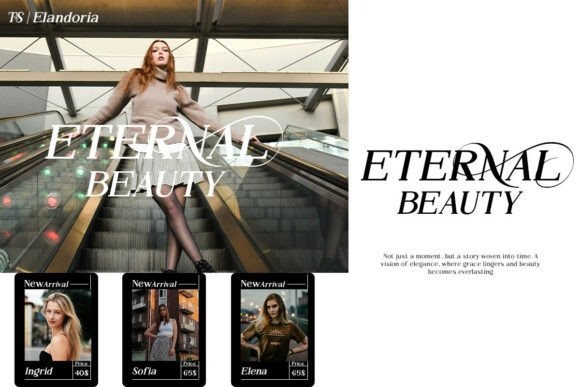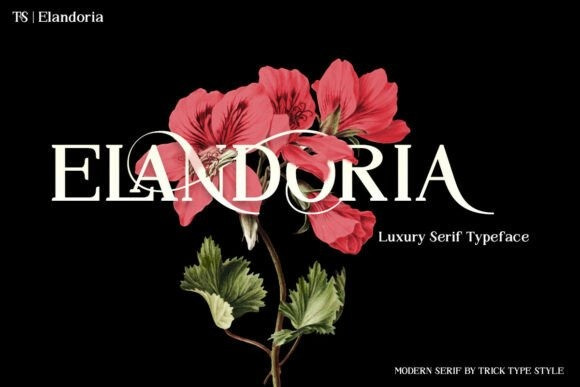
Elandoria Font
Elegant Font, refined, and timeless — Elandoria font is a luxury serif typeface that elevates every design with sophistication.Its graceful contrast between thick and thin strokes, along with unique curved serifs, creates a harmonious blend of classic elegance and modern minimalism.Featuring full multilingual support, alternates, and ligatures, the Elandoria font is perfect for branding, editorial layouts, wedding invitations, fashion magazines, and upscale packaging. Each letter exudes poise, ensuring readability without losing its artistic charm.Choose Elandoria for your next luxury project and let its elegant forms bring depth, class, and beauty to your designs. It’s a serif that embodies confidence and artistry in every curve.The Elandoria font is also PUA-encoded, ensuring effortless access to all glyphs, swashes, and alternate characters to help you customize your creations with ease.